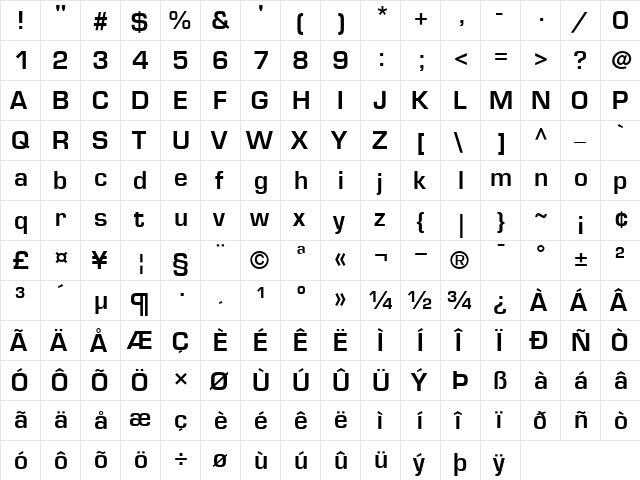
Eurostile-Demi Demi Font Preview
Eurostile-Demi Demi
Design Context for Eurostile-Demi Typeface
Eurostile-Demi offers clean, dependable letterforms without strong stylistic allegiance, making it a practical choice for designers who need flexibility.